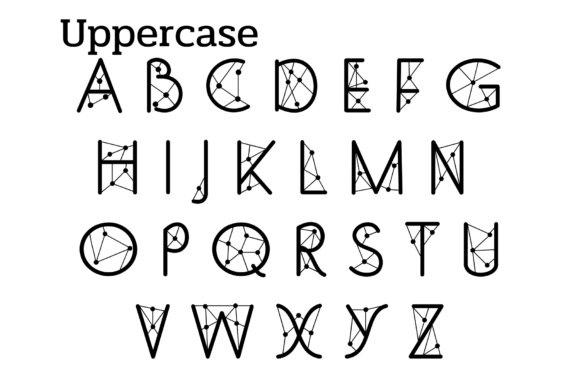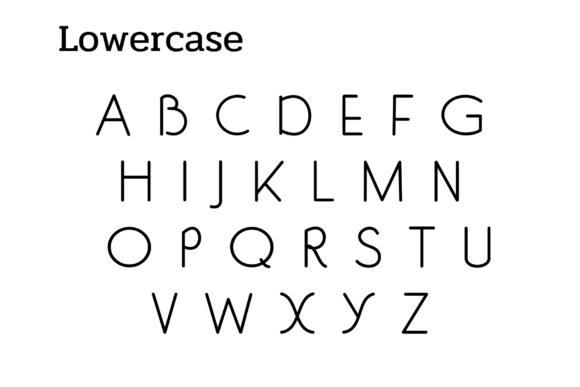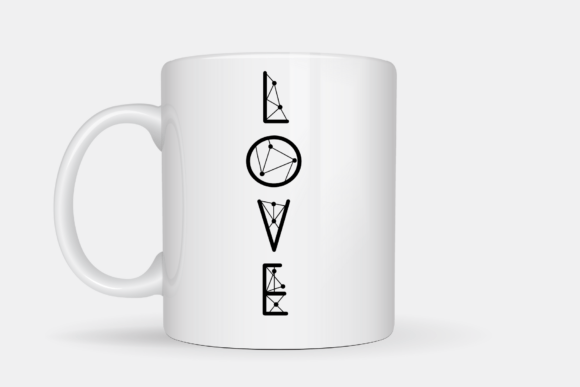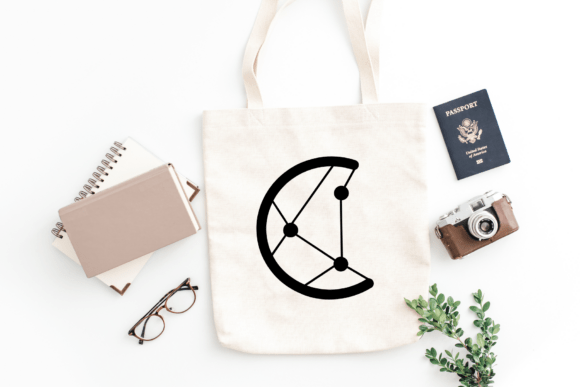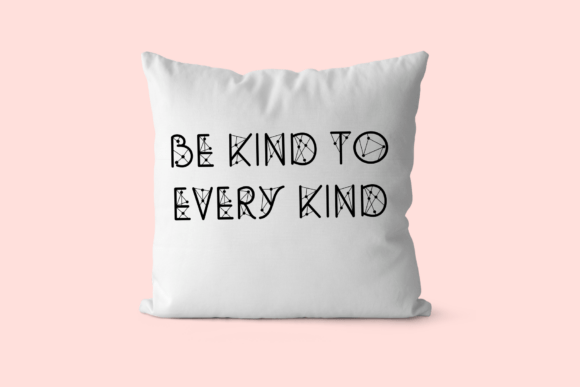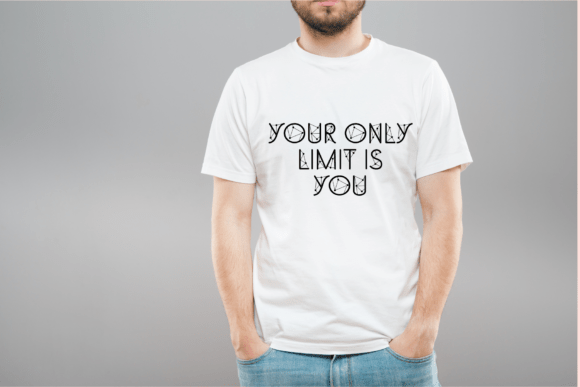
Unleash Your Creativity with the Geoconnect Font
You know that moment when a spark of inspiration strikes, and you can’t wait to bring your creative vision to life? For designers, this feeling is a constant companion, driving us to push the boundaries of what’s possible. It’s the thrill of experimentation, the joy of discovery, and the satisfaction of seeing our ideas take shape.
When you need to add a bold, geometric touch to your project, that’s where the Geoconnect Font comes in. This cool decorative font is perfect for designers looking to elevate their designs with a unique, eye-catching style. Whether you’re working on a logo, a branding campaign, or a visual identity project, the Geoconnect Font is a valuable asset in your toolkit.
With the Geoconnect Font, you’ll be able to infuse your designs with a modern, edgy vibe that’s sure to grab attention. Its versatility and geometric flair make it an essential tool for any designer looking to add a touch of sophistication and creativity to their work.
Geoconnect Font Key Features
- Font Family: Geoconnect comes in 4 font families – Regular, Italic, Bold, and Bold Italic. Each font family is designed to cater to different typography needs.
- Character Set: The font includes a comprehensive set of characters, including uppercase and lowercase letters, numbers, punctuation marks, and special characters, covering multiple languages.
- Font Size and Resolution: Geoconnect Font is optimized for display at various font sizes, from 8 to 72 points, and is designed to maintain its clarity and readability at resolutions up to 300 DPI.
- Unique Characteristics: Geoconnect Font features a unique blend of modern and classic elements, making it suitable for a wide range of applications, from corporate branding to editorial content.
- Font Weight: The font has a medium weight, making it ideal for body text and headings that require a balance between legibility and visual impact.
Geoconnect Font Review
Geoconnect Font is a unique and interesting addition to any design project. I appreciate the quirky, geometric shapes that make it stand out from more traditional fonts. ✨ The font’s bold, chunky lines and rounded corners give it a friendly, approachable feel that’s perfect for headings and titles.
One of the things that really works well about Geoconnect Font is its versatility. ✨ It’s suitable for both digital and print designs, and it’s easy to read at a variety of sizes. The font also comes in a range of weights, from light to bold, which gives designers plenty of options for creating visual interest.
However, there are a few limitations to consider. ⚠️ For one, Geoconnect Font can be a bit overwhelming if used too extensively. The bold lines and geometric shapes can start to feel cluttered and busy, which can be difficult to read. Additionally, the font may not be suitable for designs that require a more subtle or minimalist aesthetic.
Overall, I think Geoconnect Font is a great choice for designers who want to add some personality to their projects. It’s perfect for creating eye-catching headings, titles, and graphics, but it may not be the best choice for designs that require a more subdued tone.
Here are some of the pros and cons of Geoconnect Font:
- Unique, geometric shapes make it stand out from more traditional fonts ✨
- Perfect for headings and titles, especially in digital and print designs ✨
- Comes in a range of weights, from light to bold, for added versatility ✨
- Can be overwhelming if used too extensively ⚠️
- May not be suitable for designs that require a more subtle or minimalist aesthetic ⚠️
Tips for Getting the Most Out of Geoconnect Font
To get the most out of Geoconnect Font, use it for:
- Maps and geospatial data visualizations.
- Outdoor and adventure-related designs.
- Travel and tourism marketing materials.
Geoconnect Font is commonly used for:
- Signage and wayfinding systems.
- Brochures and travel guides.
- Web maps and geospatial applications.
Alternatives to Geoconnect Font for Designers
Q: What is the recommended font size and line height for the Geoconnect Font?
For optimal readability, we recommend using a font size between 12px and 24px, with a line height of at least 1.2 times the font size. This will ensure a comfortable reading experience across various devices and screen sizes.